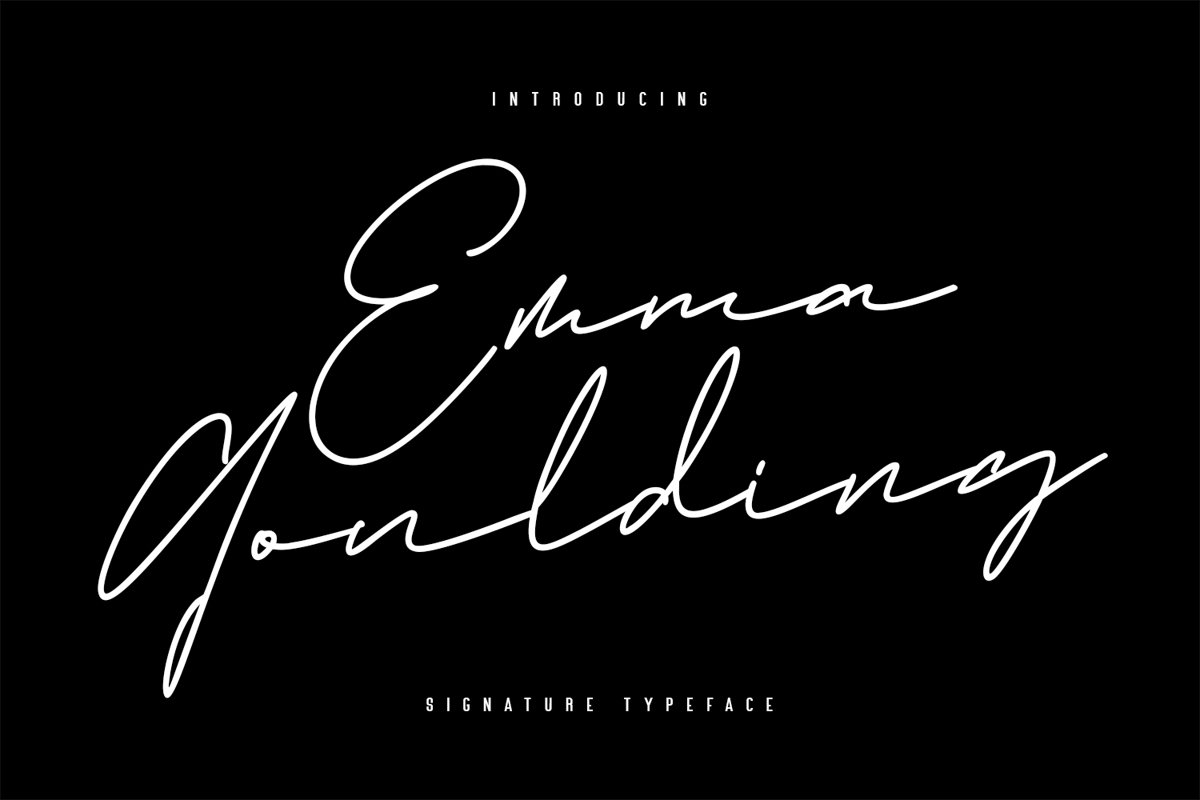
Give your designs an authentic handcrafted feel. "Emma Goulding Signature Collection Script Font" is perfectly suited to signature, stationery, logo, typography quotes, magazine or book cover, website header, clothing, branding, packaging design and more. Included Alternate.